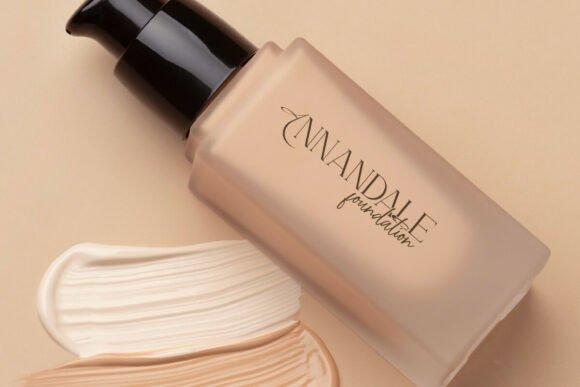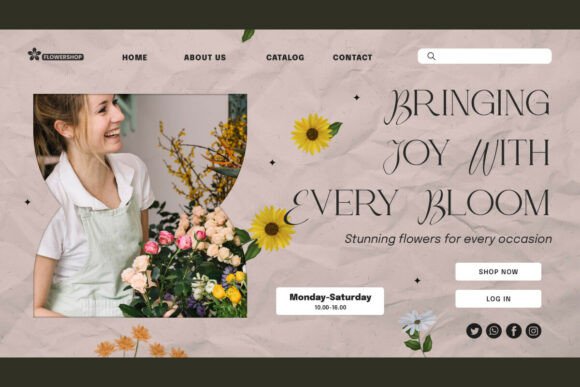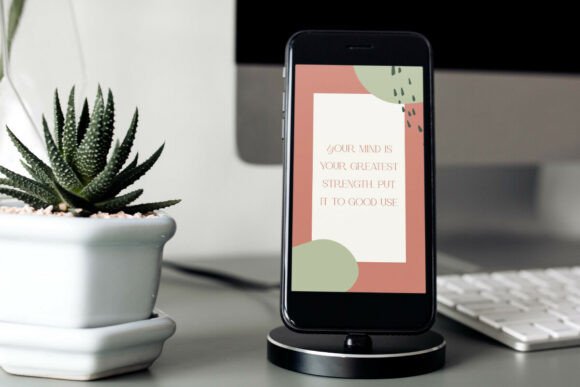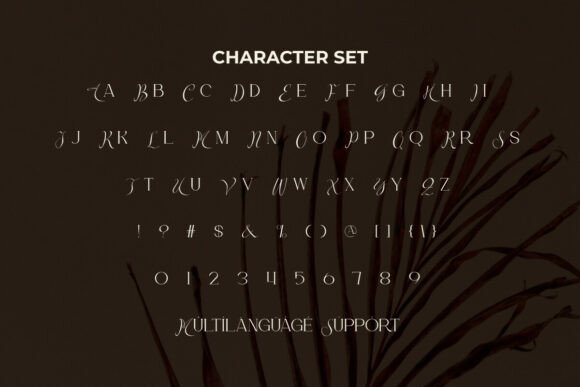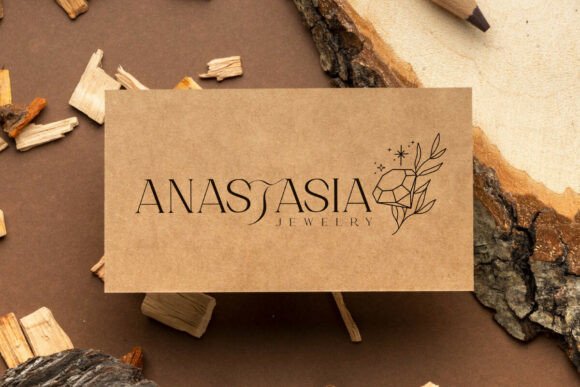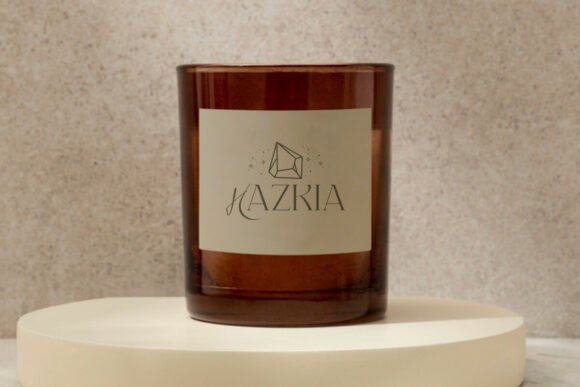
Introducing Annandale Font: Elevate Your Designs with Elegance and Sophistication
In the world of typography, few fonts manage to strike a balance between modern basics and captivating details. Annandale Font is one such exceptional typeface that seamlessly combines a classy, professional feel with charming twists. This sleek and elegant serif display font is perfect for designers and crafters looking to add a touch of sophistication to their projects.
Key Features of Annandale Font
Annandale Font boasts a range of features that make it an ideal choice for various design projects. Some of its key features include:
• Beautiful Letter Characters: Each letter character in Annandale Font is meticulously crafted to strike a perfect balance between modern basics and captivating details.
• Versatile: This typeface is suitable for a wide array of projects, including blogs, book titles, brand names, business cards, company logos, invitations, label products, movie titles, quotes, stickers, watermarks, websites, and more.
• Complete Set of Uppercase and Lowercase Basic Characters: Annandale Font comes with a complete set of uppercase and lowercase basic characters, ensuring that you have all the tools you need to create stunning designs.
Industries That Can Benefit from Annandale Font
Annandale Font’s unique style makes it perfect for various industries, including:
• Clothing Brands: Add a touch of elegance to your clothing brand’s logo, packaging, or marketing materials with Annandale Font.
• Cafeterias and Restaurants: Create a sophisticated atmosphere for your food business with Annandale Font’s classy and professional feel.
• Cosmetics and Skincare: Elevate your beauty brand’s designs with Annandale Font’s elegant and captivating typography.
• Event Organizers: Make your event invitations, flyers, and marketing materials stand out with Annandale Font’s unique style.
• Film and Photography: Add a touch of sophistication to your movie titles, quotes, and photography designs with Annandale Font.
• Florists and Furniture: Create beautiful and elegant designs for your flower shop or furniture business with Annandale Font.
• Graphic Design and Handicrafts: Use Annandale Font to add a touch of elegance to your graphic design projects, handicrafts, and home decoration designs.
• Jewelry and Lounges: Elevate your jewelry brand’s designs or lounge’s ambiance with Annandale Font’s sophisticated typography.
Design Applications for Annandale Font
Annandale Font’s versatility makes it suitable for a wide range of design applications, including:
• Blogs: Use Annandale Font to create a sophisticated and elegant look for your blog’s title, headings, or body text.
• Book Titles: Make your book titles stand out with Annandale Font’s beautiful and captivating typography.
• Brand Names: Create a memorable and elegant brand name with Annandale Font.
• Business Cards: Add a touch of sophistication to your business cards with Annandale Font.
• Company Logos: Elevate your company logo with Annandale Font’s unique and elegant style.
• Invitations: Create beautiful and elegant invitations for special occasions, such as weddings, birthdays, or graduations.
• Label Products: Use Annandale Font to create elegant and sophisticated labels for your products.
• Movie Titles: Make your movie titles stand out with Annandale Font’s captivating typography.
• Quotes: Create inspiring and elegant quotes with Annandale Font.
• Stickers: Add a touch of elegance to your stickers with Annandale Font.
• Watermarks: Use Annandale Font to create sophisticated and elegant watermarks for your designs.
• Websites: Elevate your website’s design with Annandale Font’s unique and captivating typography.
Annandale Font is a versatile and elegant serif display font that can elevate your designs to the next level. Its beautiful letter characters, complete set of uppercase and lowercase basic characters, and unique style make it perfect for various industries and design applications. Whether you’re a designer, crafter, or business owner, Annandale Font is an excellent choice for adding a touch of sophistication and elegance to your projects.